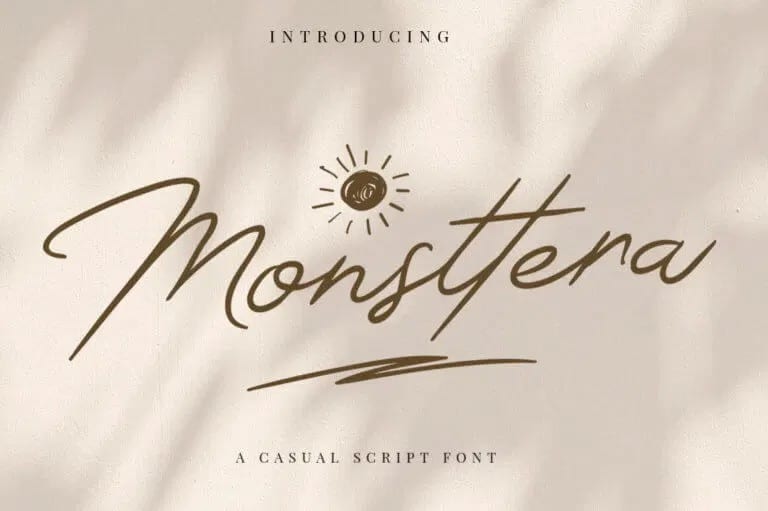
Monsttera Font
Monsttera Handwritten Font is a modern handwritten script font can make your text appear elegant, luxurious, and modern. This font was created to look as close to a natural handwritten script as possible by including some alternates lowercase, ligature and underlines.
This enchanting font will turn any creative idea into a true standout. Perfect fit for all of your logos, branding, social media, etc. Get creative with its unique playfulness, and use it to brighten up any crafting project!